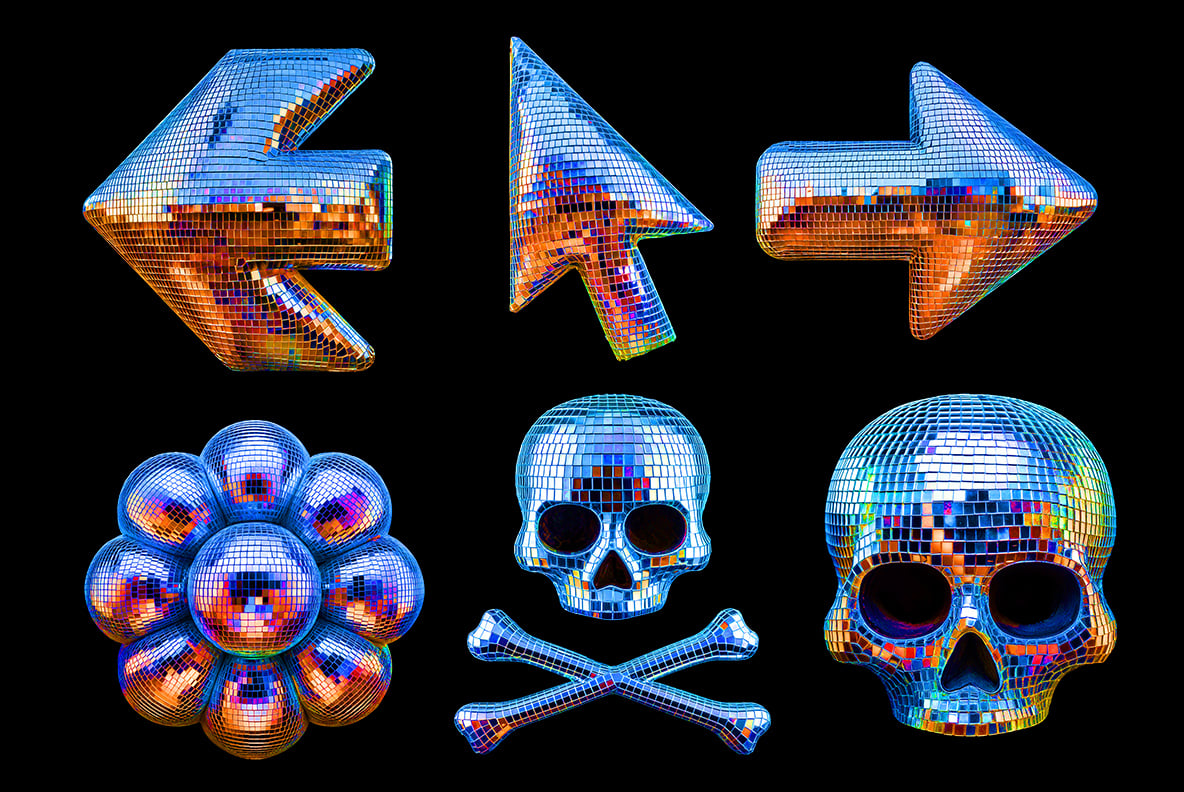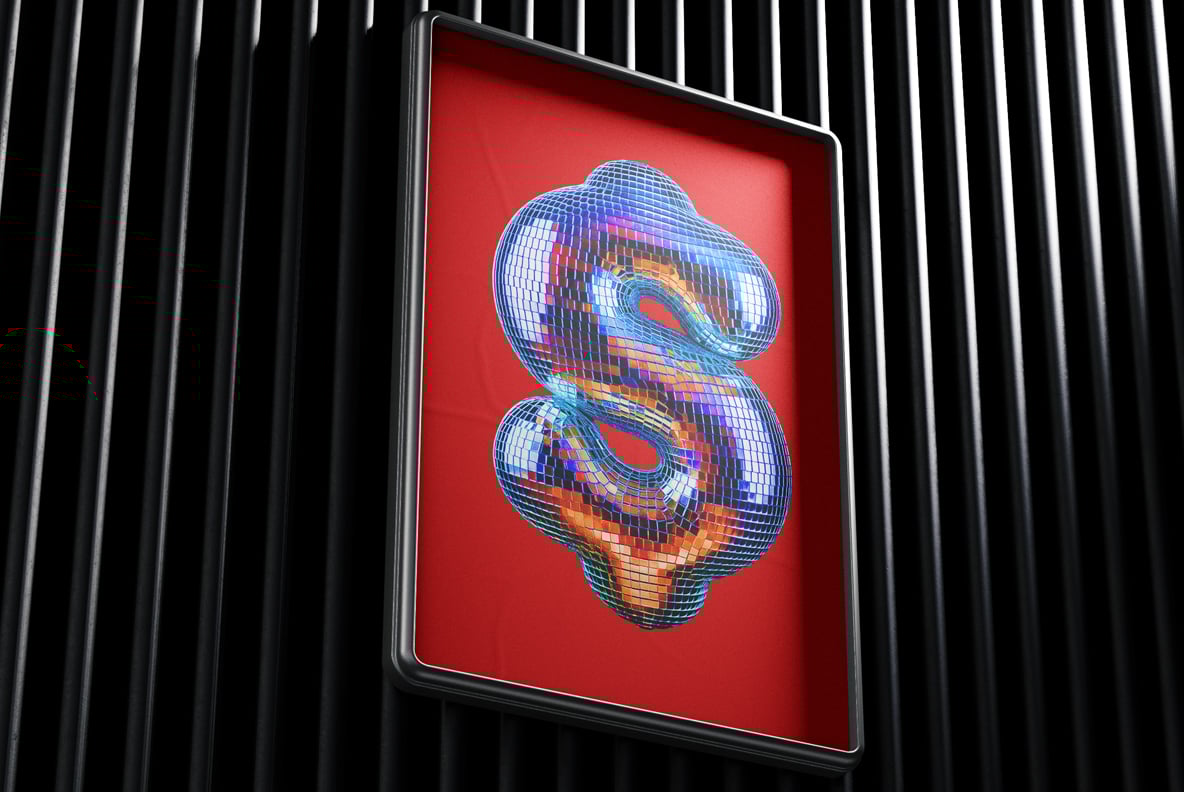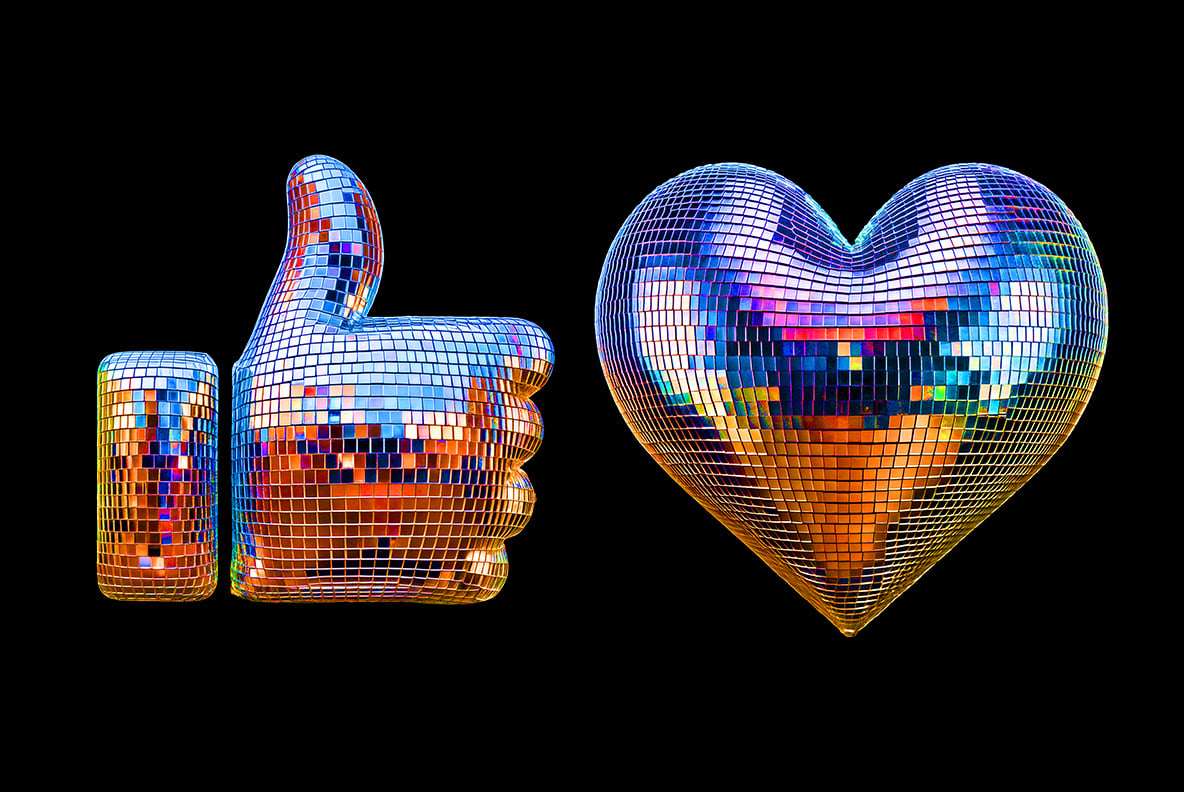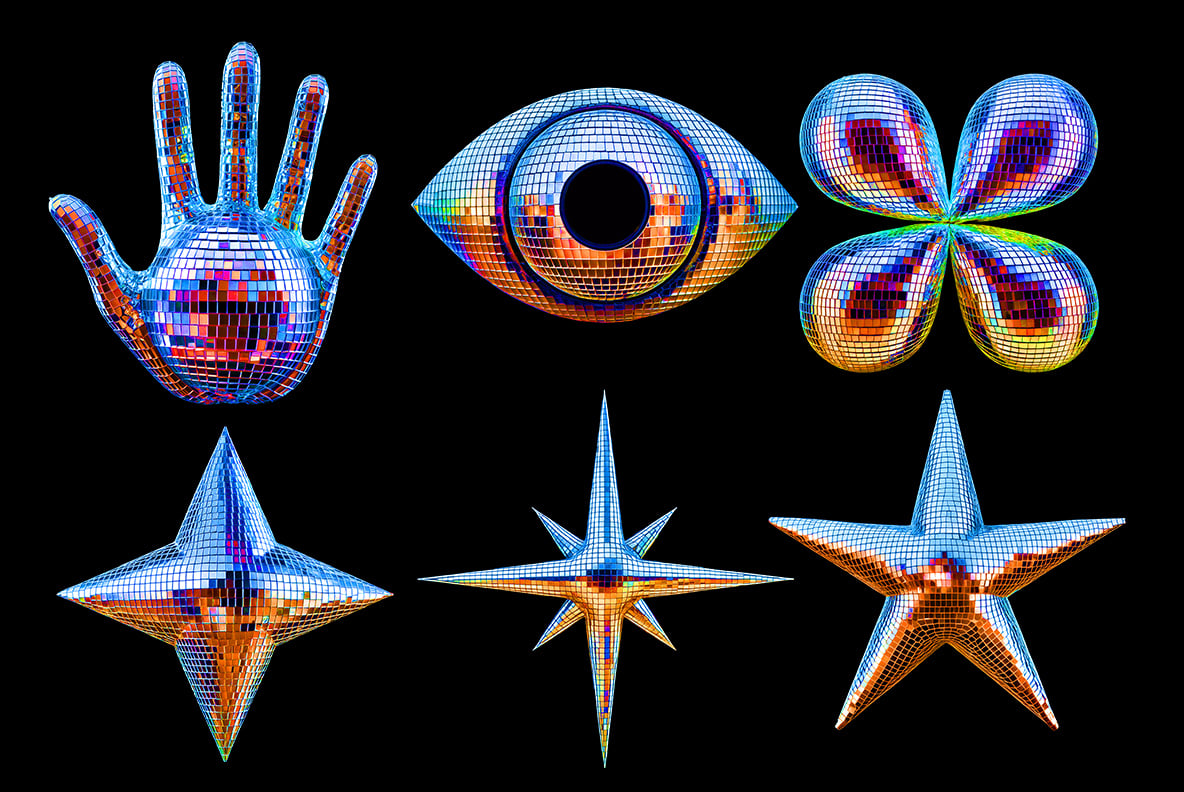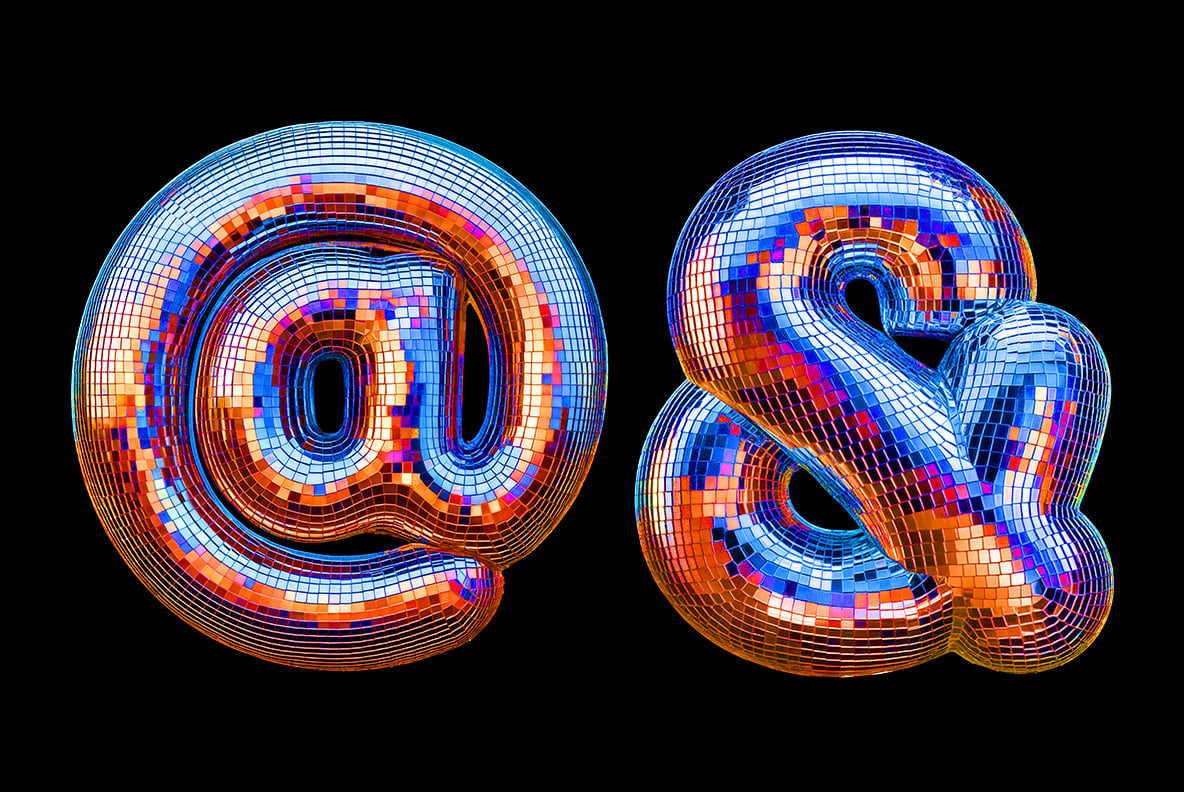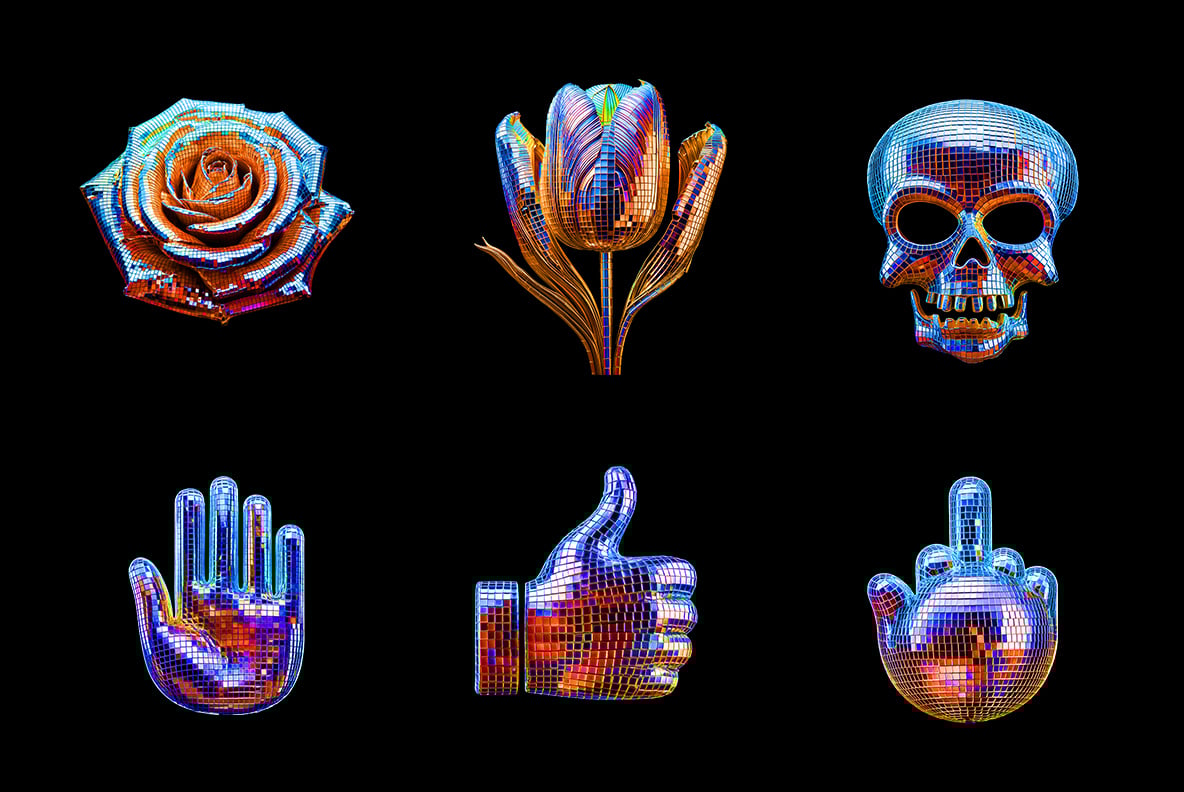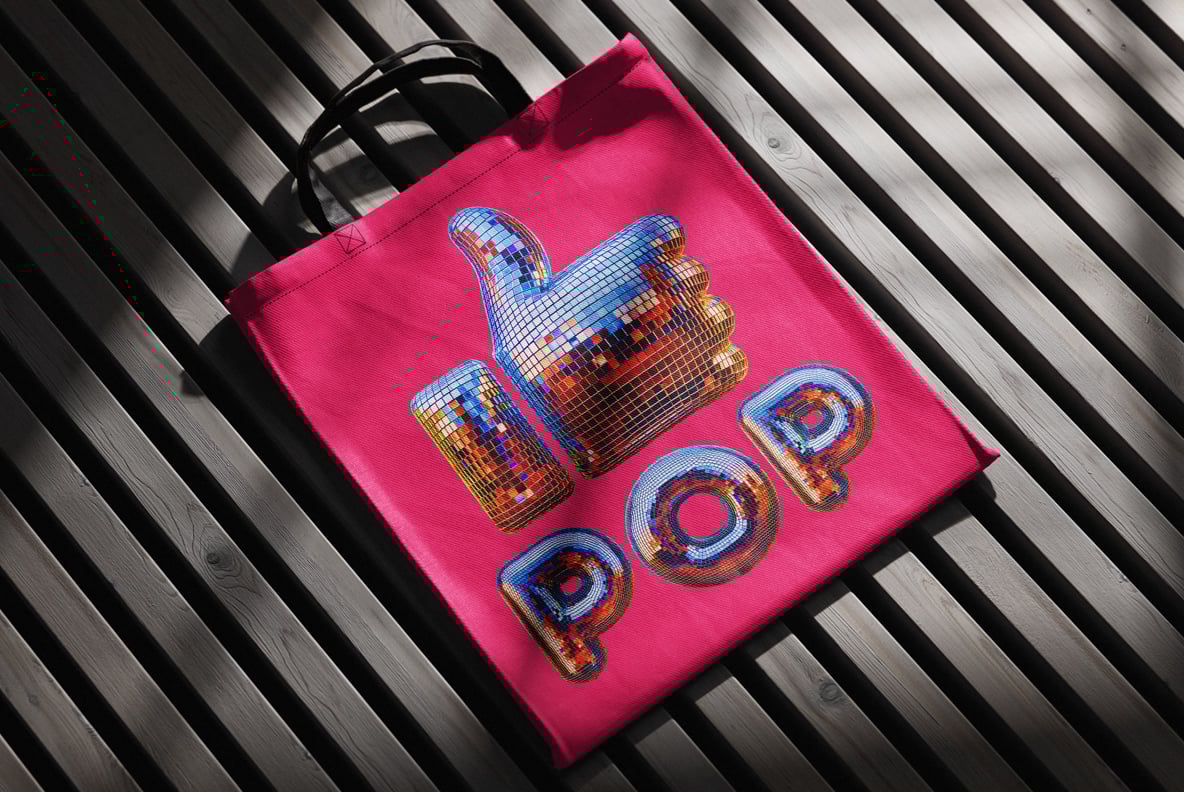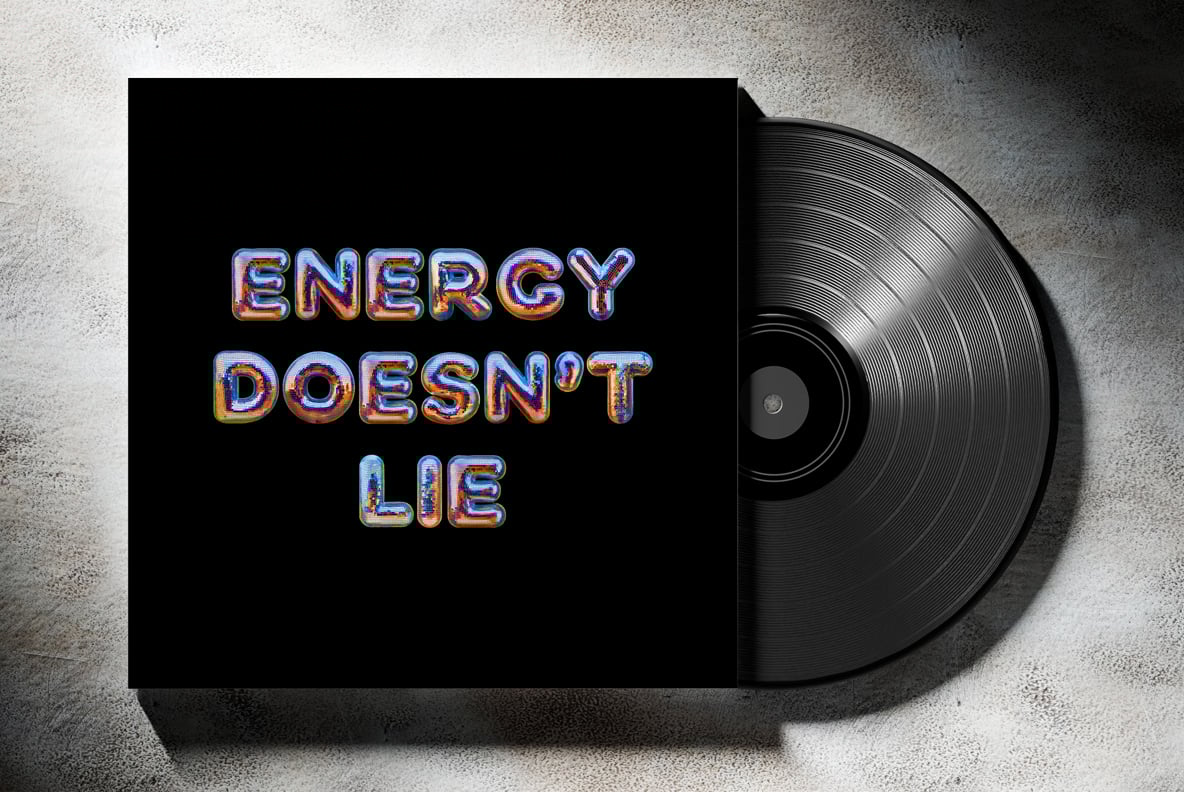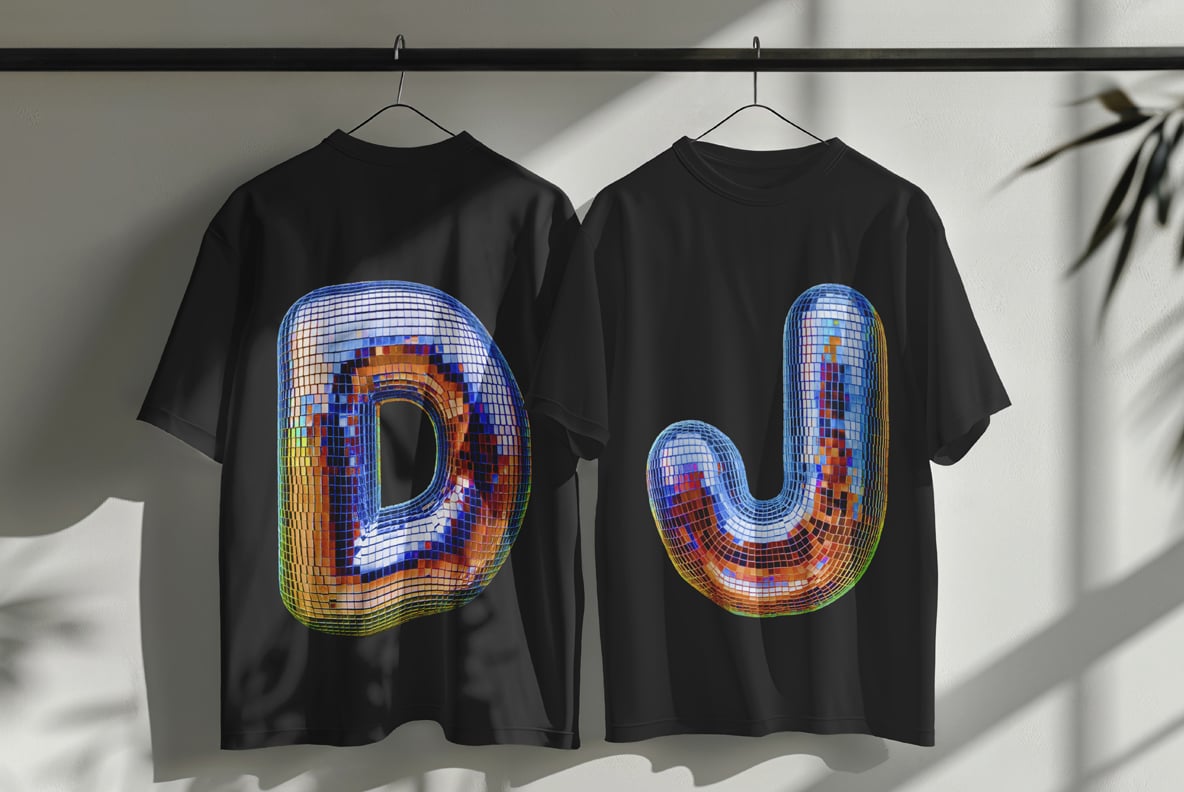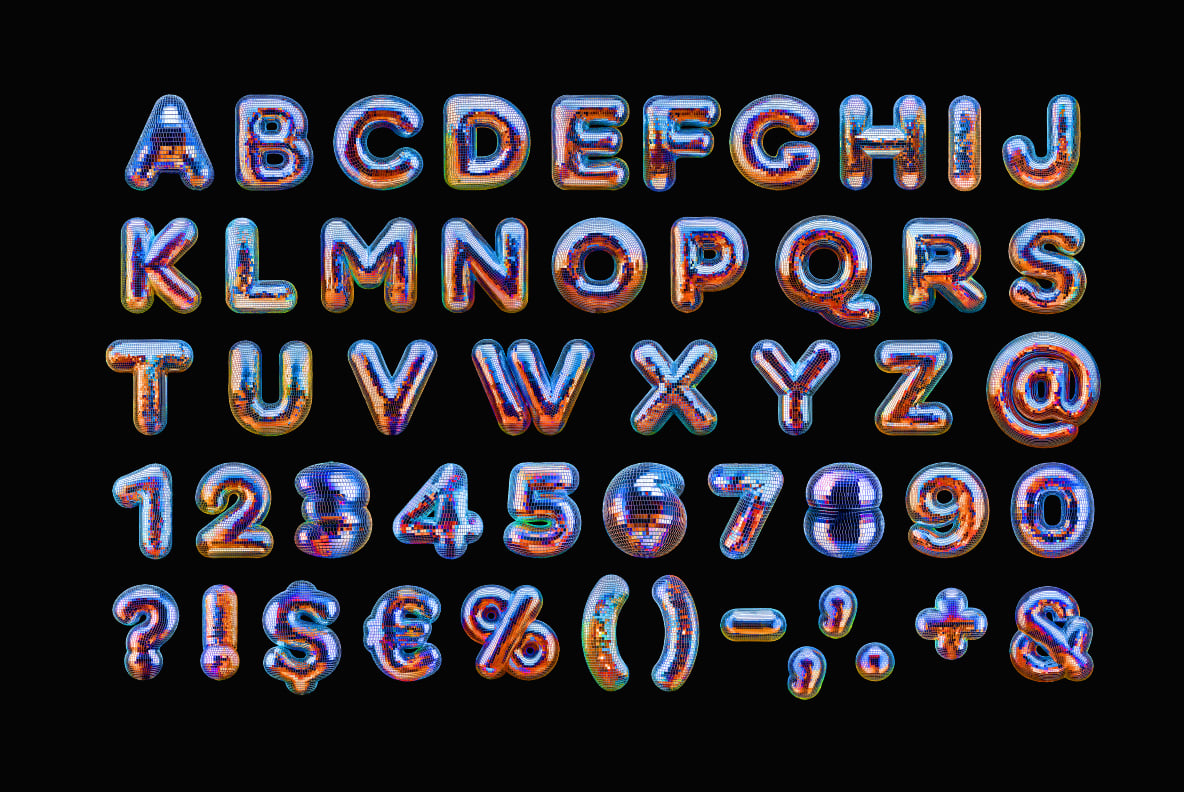
Disco-Pop Font
Disco-Pop Font is a bold, shimmering typeface inspired by the energy and glamour of disco culture. Each letter is designed to resemble a 3D disco ball, covered in mirrored mosaic tiles that reflect vibrant blues, purples, and fiery oranges. With a glossy, inflated appearance and dynamic lighting, this font pulses with rhythm and radiance. Ideal for party posters, music events, or anything needing a splash of retro glam, Disco-Pop Font captures the carefree, dance-fueled vibe of the ‘70s and ‘80s. It’s not just a font—it’s a celebration, turning typography into a spinning, sparkling light show of sound and style.